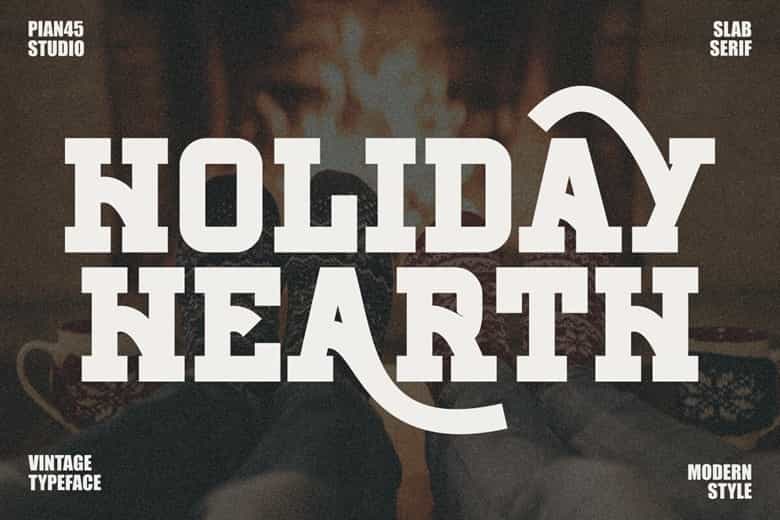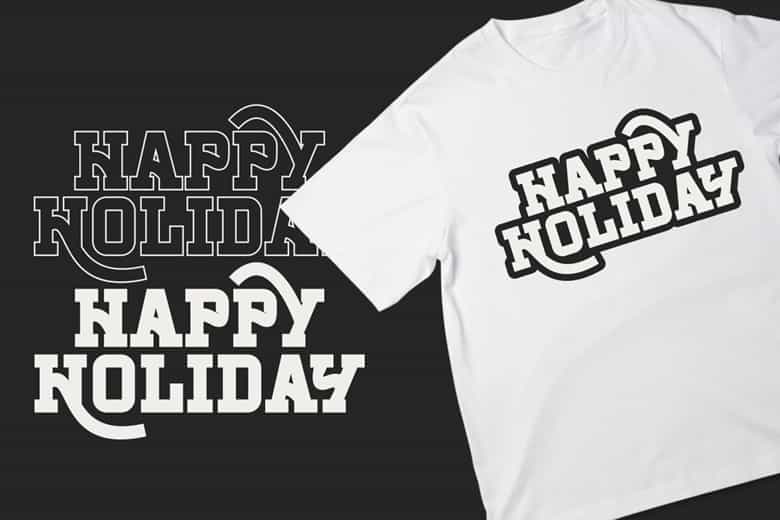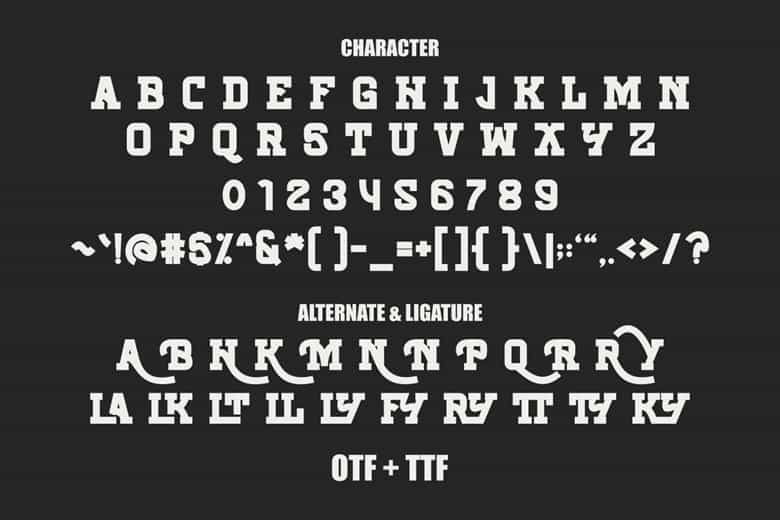
It’s a creative and stylish font of the slab serif type that aims at evoking the spirit of the holidays such as Christmas and Thanksgiving. It is quite thick to provide the devices and products with enough prominence and stiffness for apparel mockups, t-shirts, hoodies and the rest.